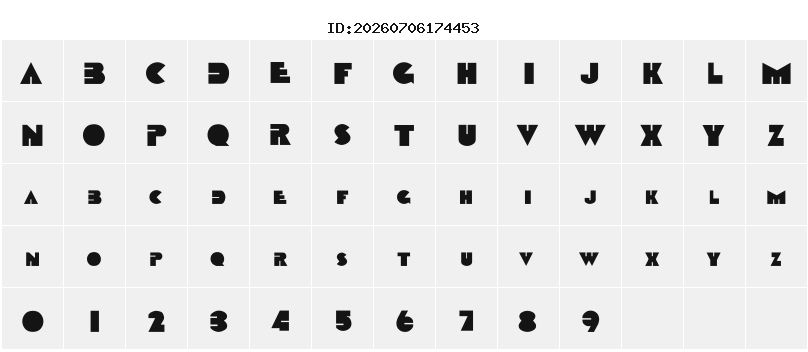
Devendra Preview
About Devendra.ttf
Devendra.ttf is a modern, elegant sans-serif font designed for ultimate readability and visual harmony. Perfect for branding, headlines, web design, and print materials.